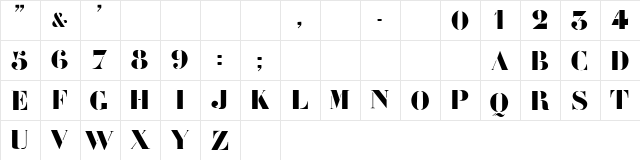
Charrette Regular
Design Context for Charrette Typeface
Charrette is a composed and adaptable typeface that performs quietly and consistently across a wide range of design contexts.